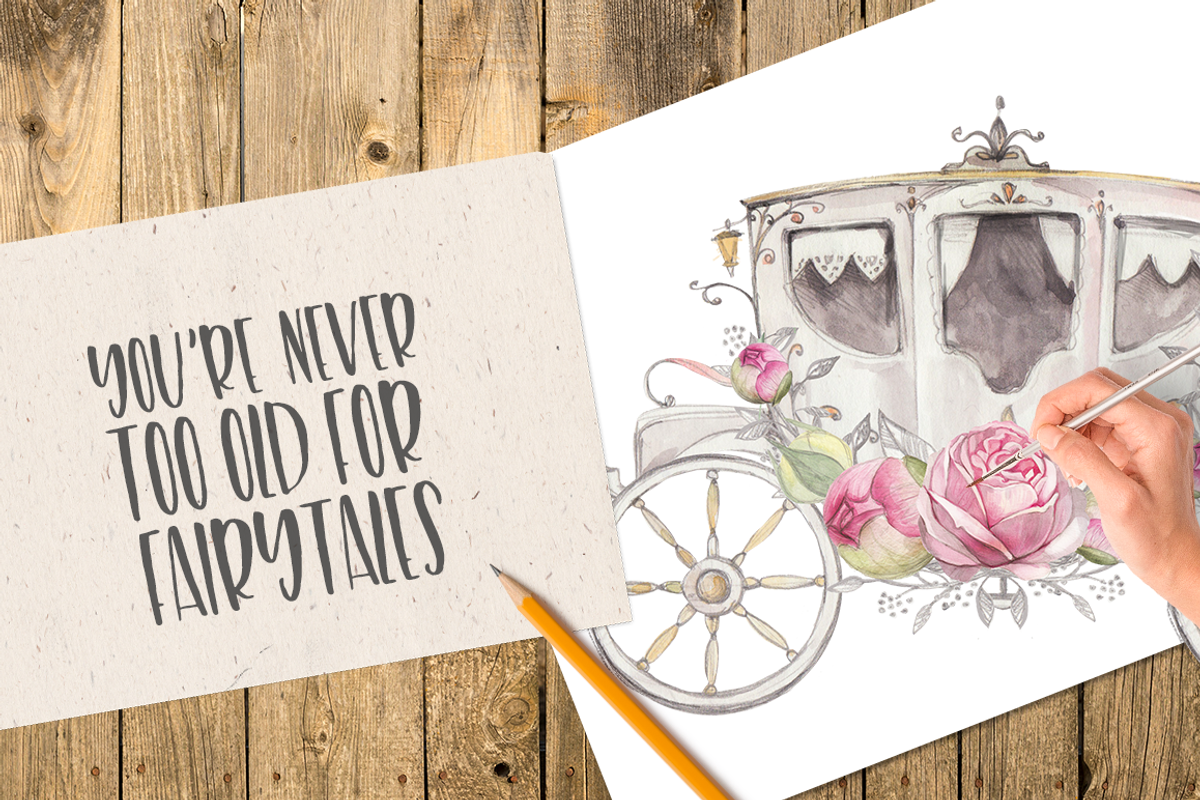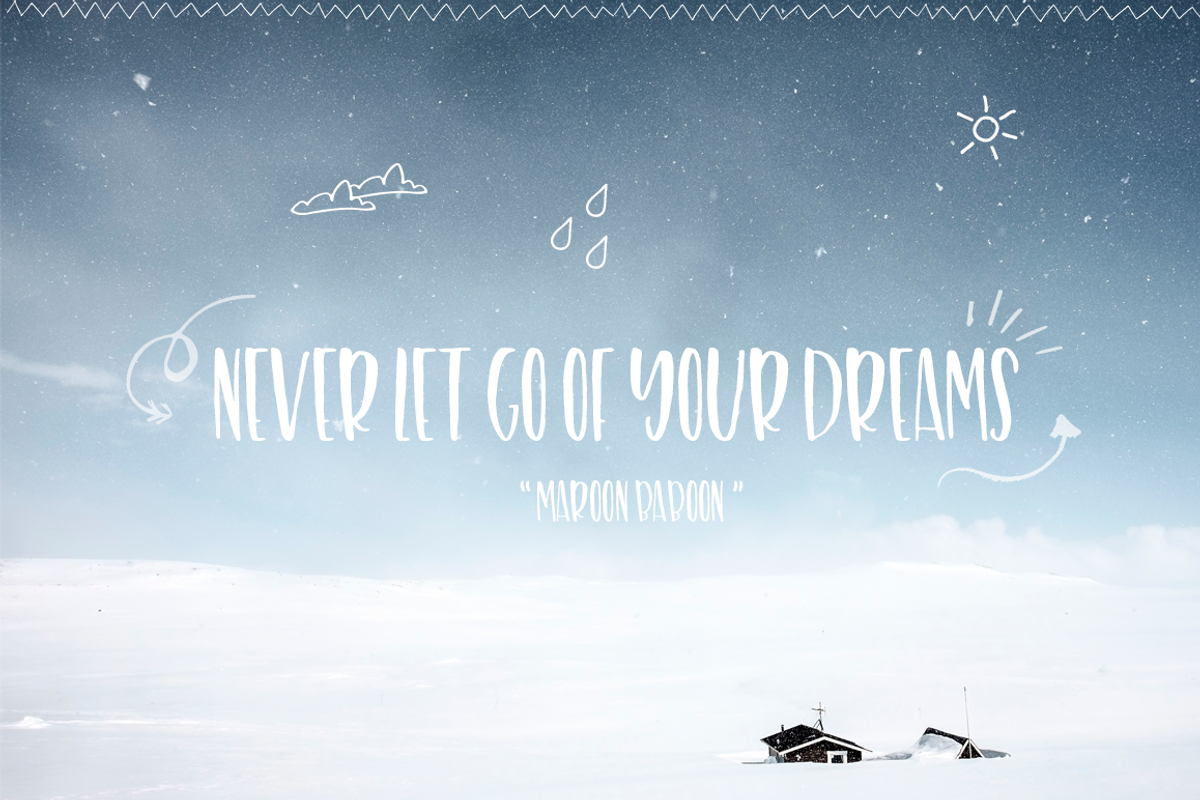
Dumbleton Font
Dumbleton Font by Lollipop Hand Drawn is a font selected for branding, posters, packaging, typography.
Why Dumbleton Font is worth a look
Dumbleton Font by Lollipop Hand Drawn fits naturally into Branding, posters, packaging, typography.